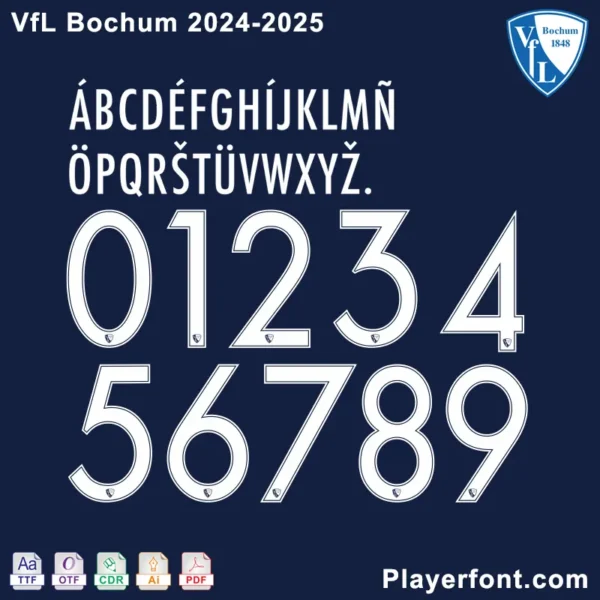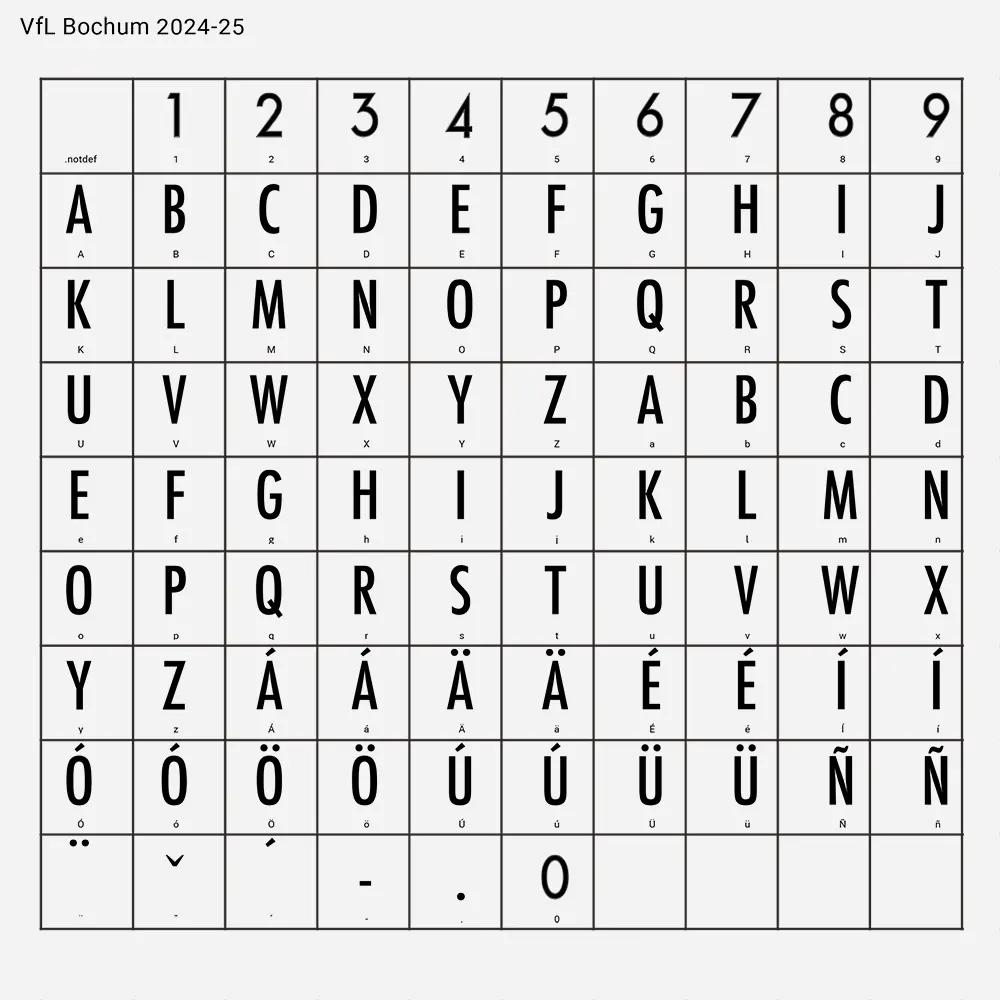
VfL Bochum 2024-2025 Font Download
Professional-grade font files matching Bochum’s 2024-25 season typography
Unleash your creativity with the VfL Bochum 2024-25 Font Download, a distinctive typeface celebrating the 2024-25 season of the beloved German football club. This premium pack features TTF and OTF files for smooth font integration, plus CDR and PDF vector files for versatile design applications. Perfect for VfL Bochum supporters and graphic designers alike, this downloadable font captures the club’s spirit and legacy. Download now and bring Bochum’s passion to your next project!